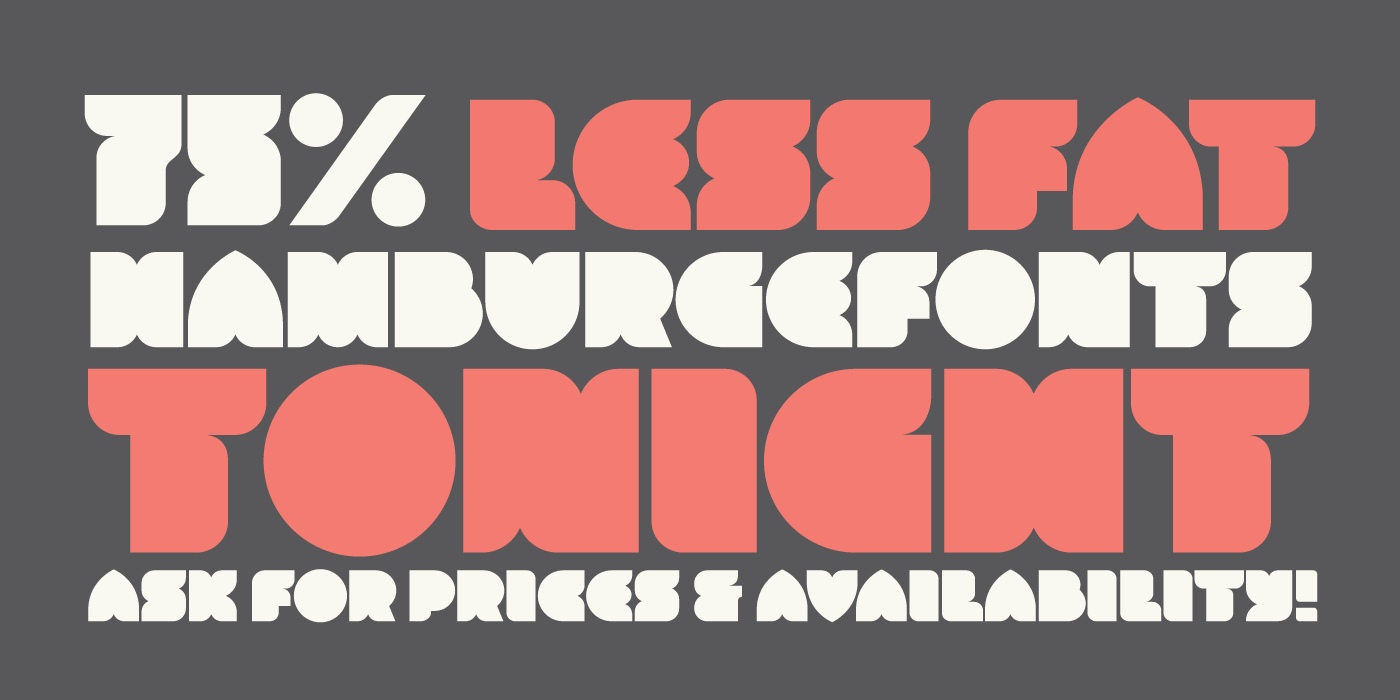
MM Zaftig Font
MM Zaftig Font is perfect for body-positive fashion brands, inclusive wellness centers, celebratory food culture campaigns, full-figured lifestyle magazines, confidence-building coaching services, and empowering self-acceptance organizations. Its voluptuous character makes it ideal for plus-size fashion boutiques, body diversity advocacy groups, inclusive beauty brands, celebratory dining experiences, confidence workshops, and any project requiring abundant joy with inclusive body positivity and self-love empowerment.
This font is exciting because it celebrates the beauty of fullness and abundance while delivering exceptional functionality for brands promoting body acceptance and inclusive representation. The generously crafted letterforms embody confidence, self-acceptance, and the celebration of all body types, creating powerful emotional connections that resonate with audiences seeking authentic representation, body positivity, and the courage to embrace their natural beauty without compromise.
The MM Zaftig Font family typically includes Light, Regular, Medium, and Bold weights with celebratory alternates, confidence-inspiring ligatures, and empowering decorative elements that enhance its inclusive personality. This comprehensive collection provides body-positive professionals with affirming tools for creating welcoming brand systems that maintain authentic representation while offering flexibility for various inclusion applications requiring genuine acceptance and diversity-focused positioning.
Whether you're developing identity systems for inclusive fashion brands, creating materials for body positivity campaigns, or designing platforms for self-acceptance services, MM Zaftig Font Free Download delivers the confident celebration and inclusive appeal that connects with audiences embracing body diversity and self-love. Its joyful presence ensures memorable brand recognition across digital platforms and print materials, making it perfect for websites, mobile applications, and empowerment campaigns that celebrate body positivity, inclusive beauty, and the transformative power of self-acceptance with contemporary confidence and authentic diversity representation.